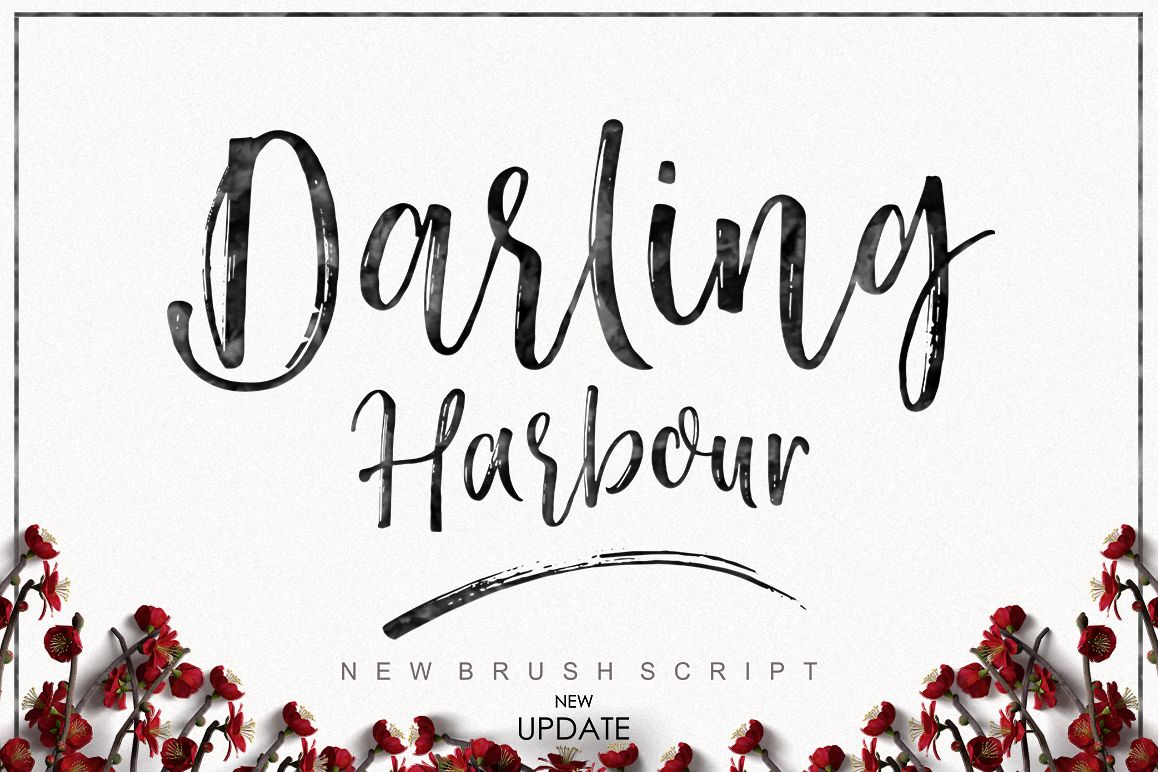
Darling Harbour
Darling Harbour Brush
Darling Harbour Slant
Darling Harbour Extra Swashes
Darling Harbour Brush: A fresh handwritten font, luxurious and elegant with a
dancing baseline. perfect for Branding, Logos, Greeting Cards, Wedding
Stationery, Quotes etc.